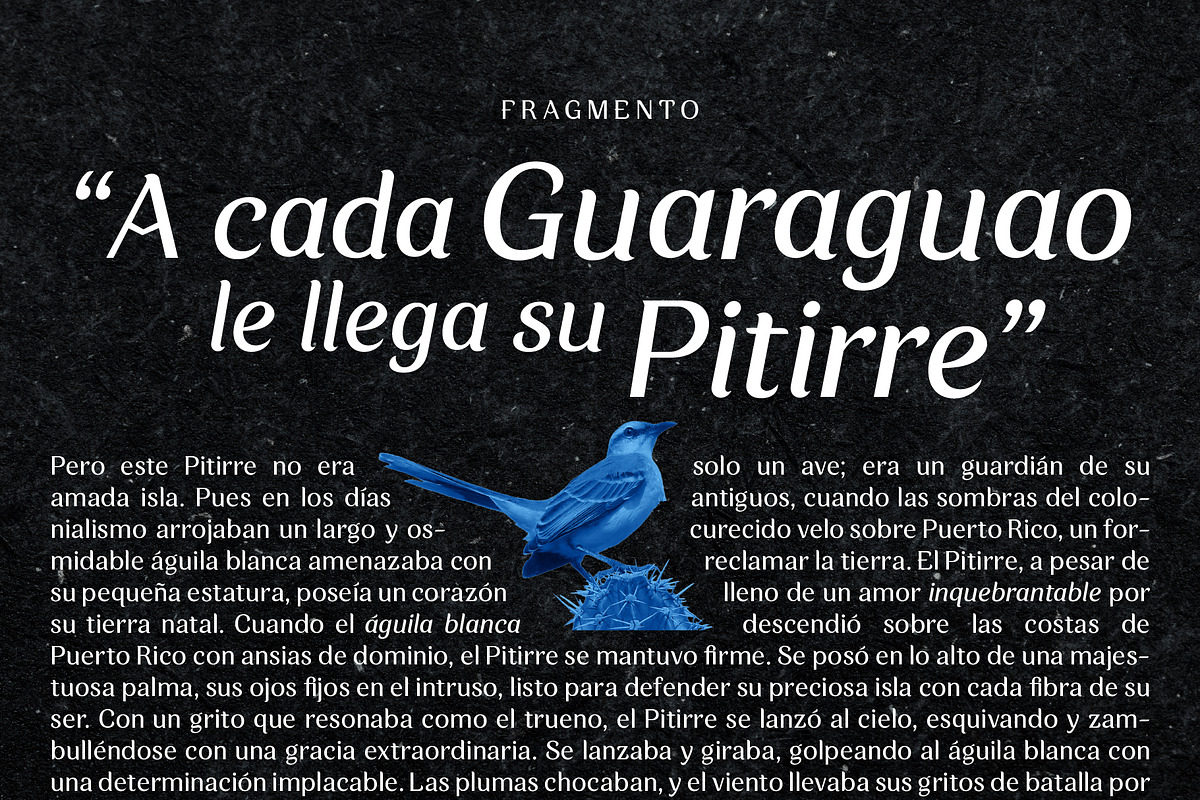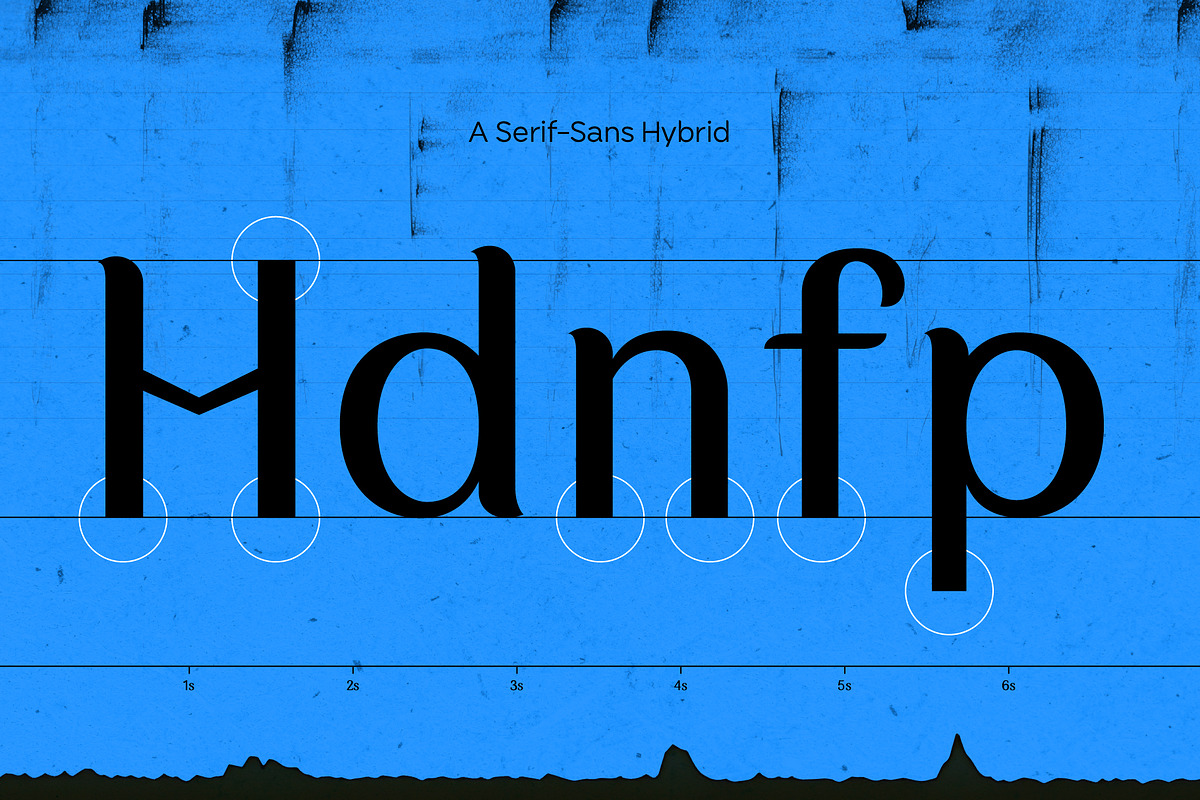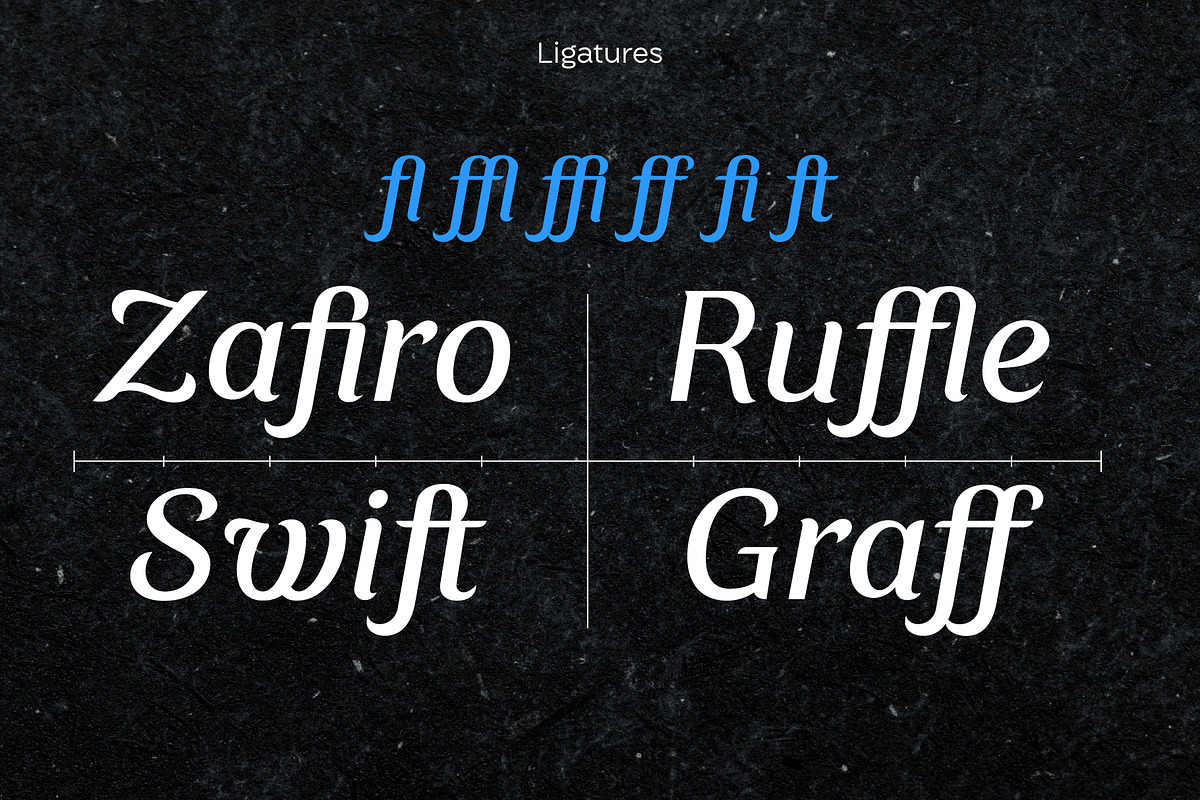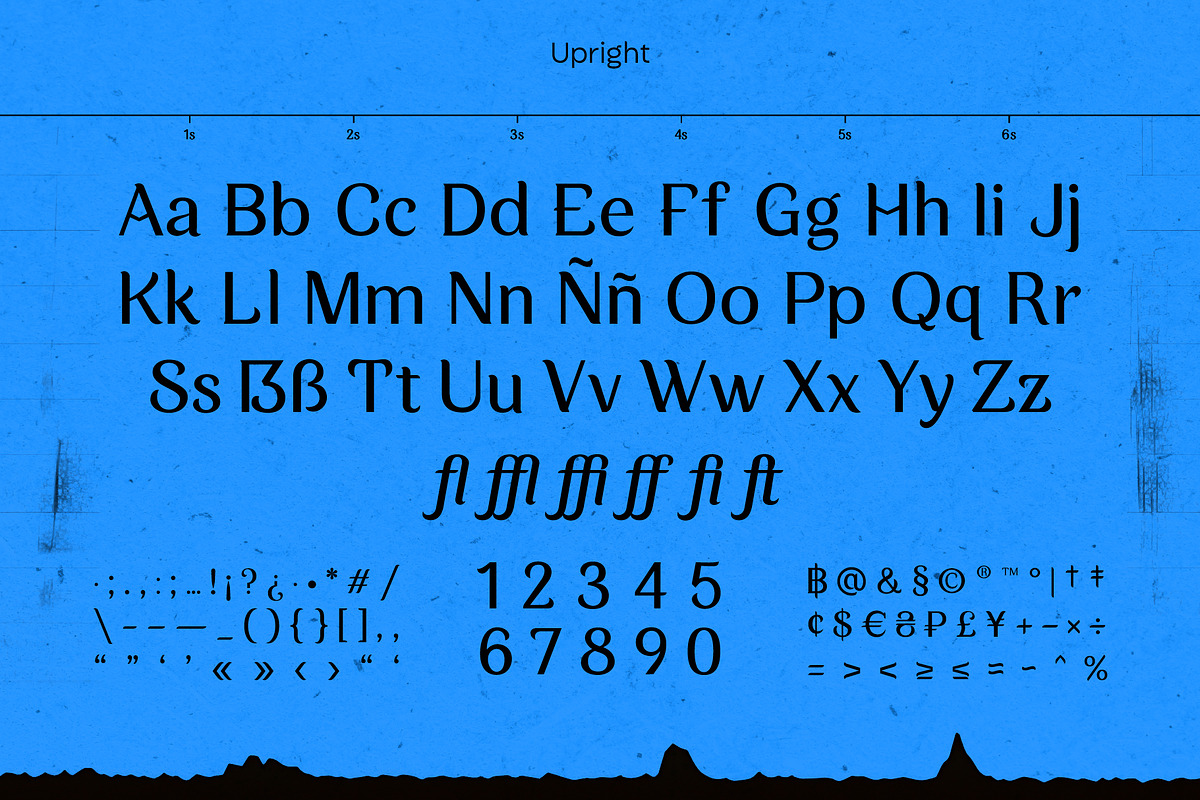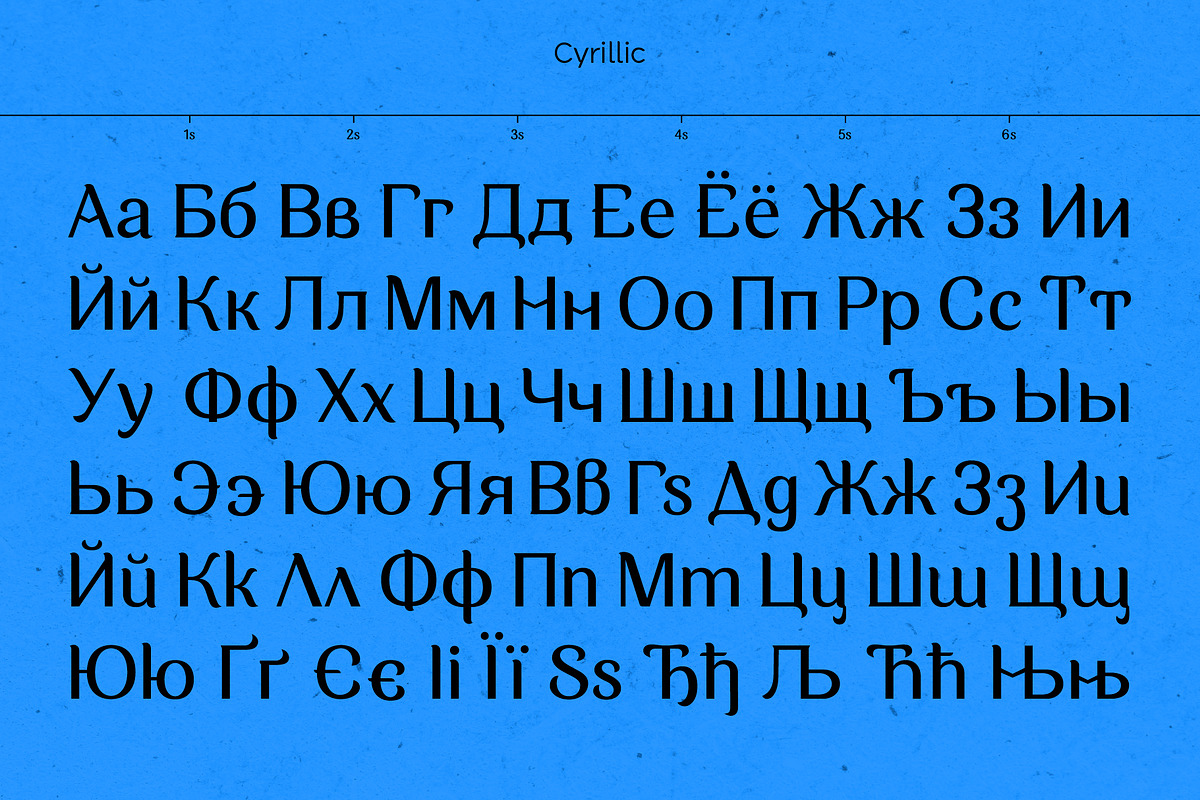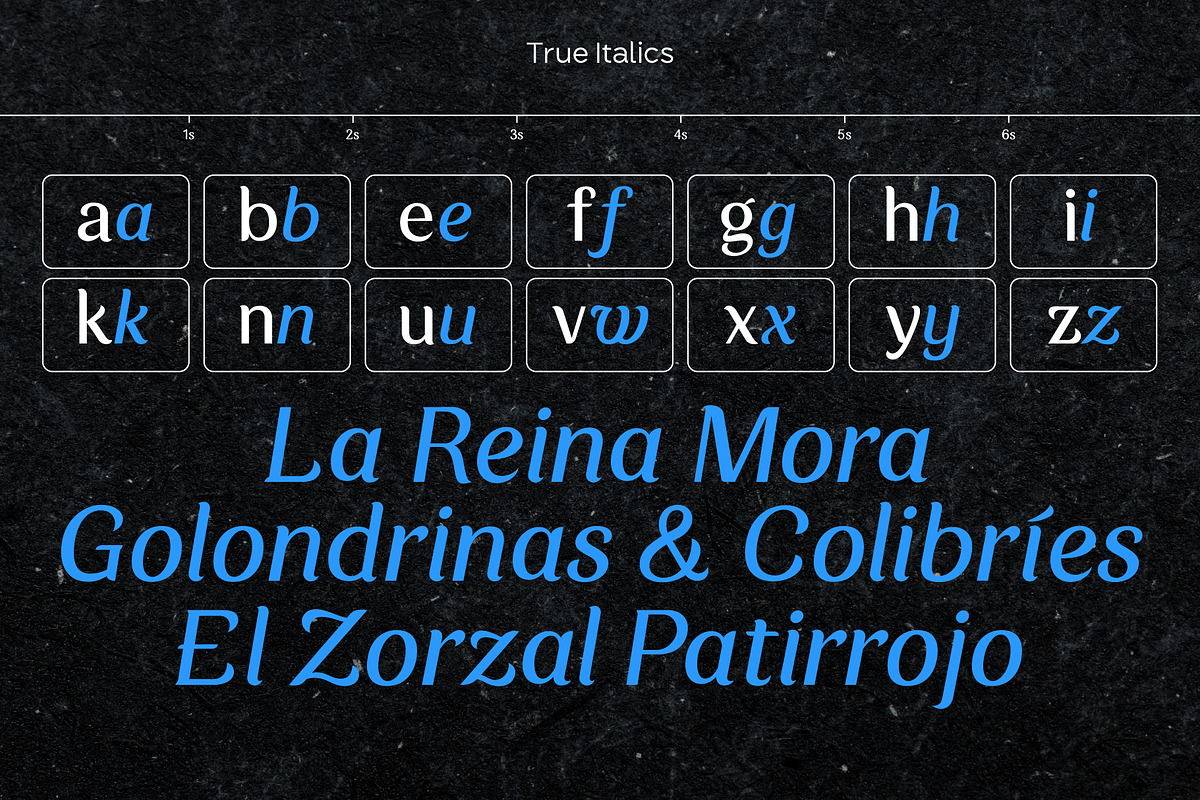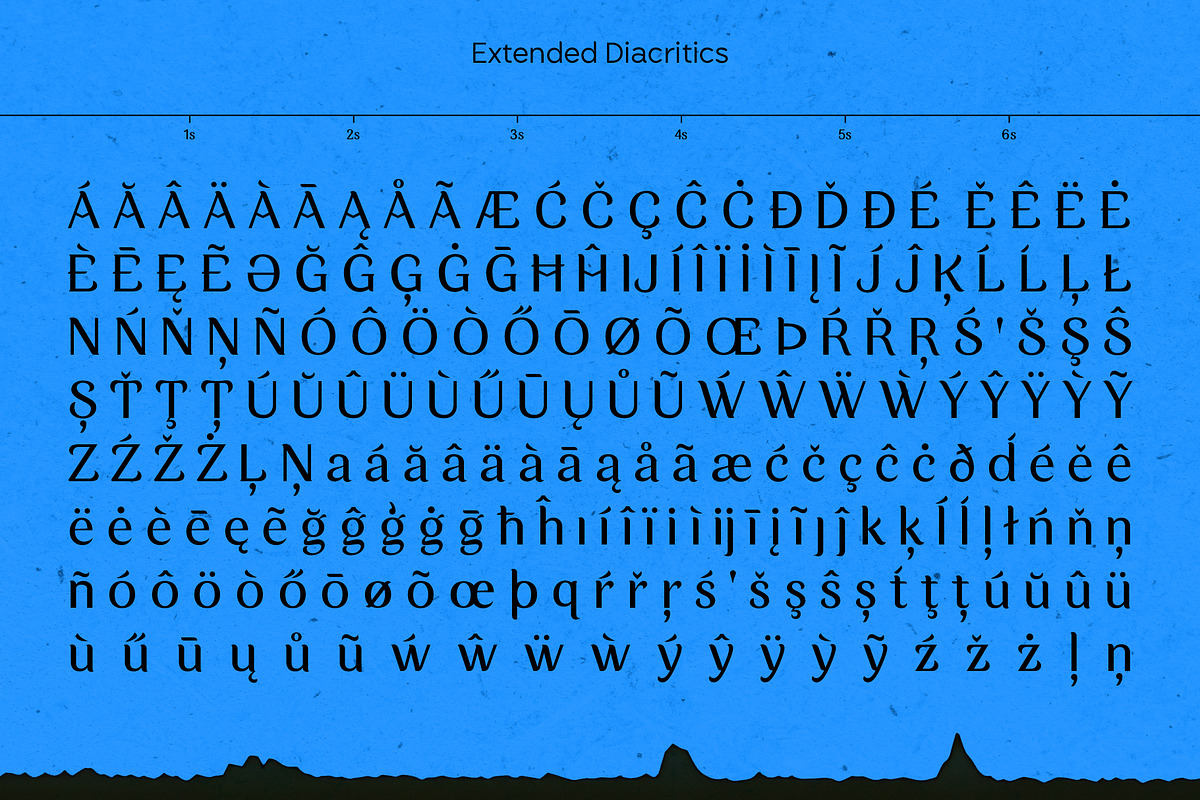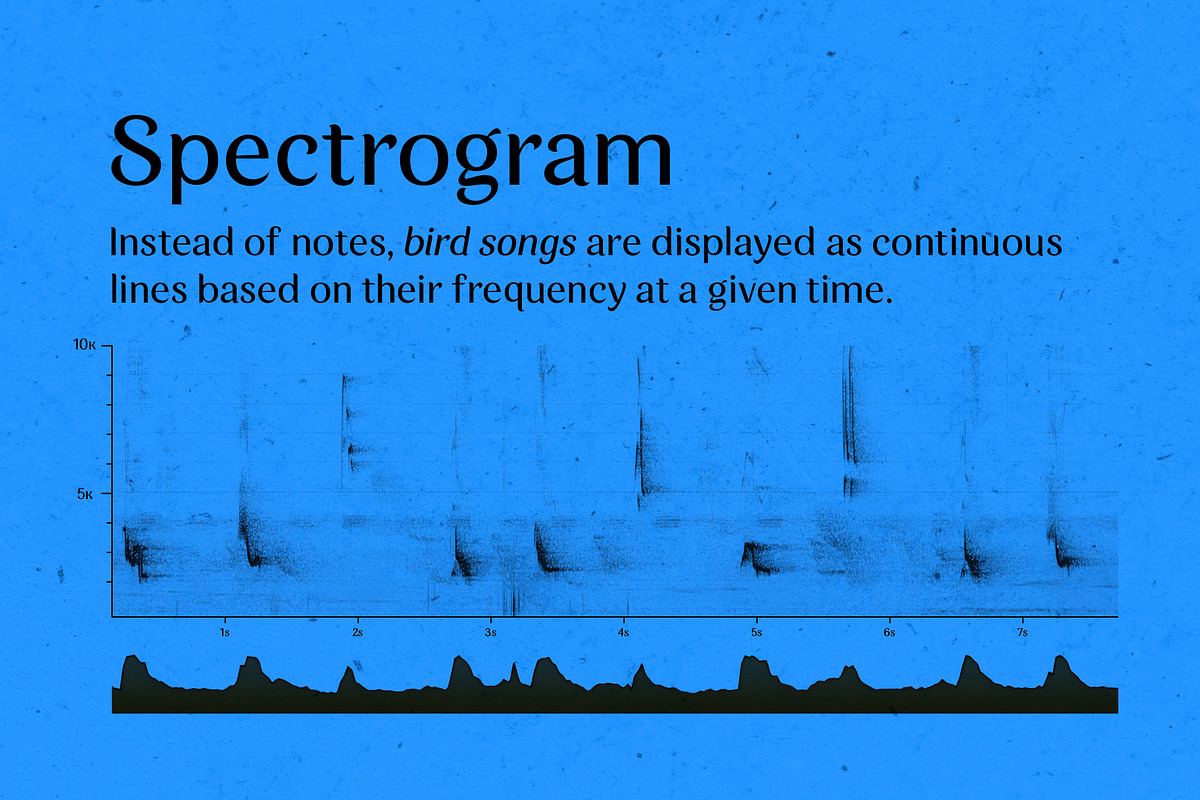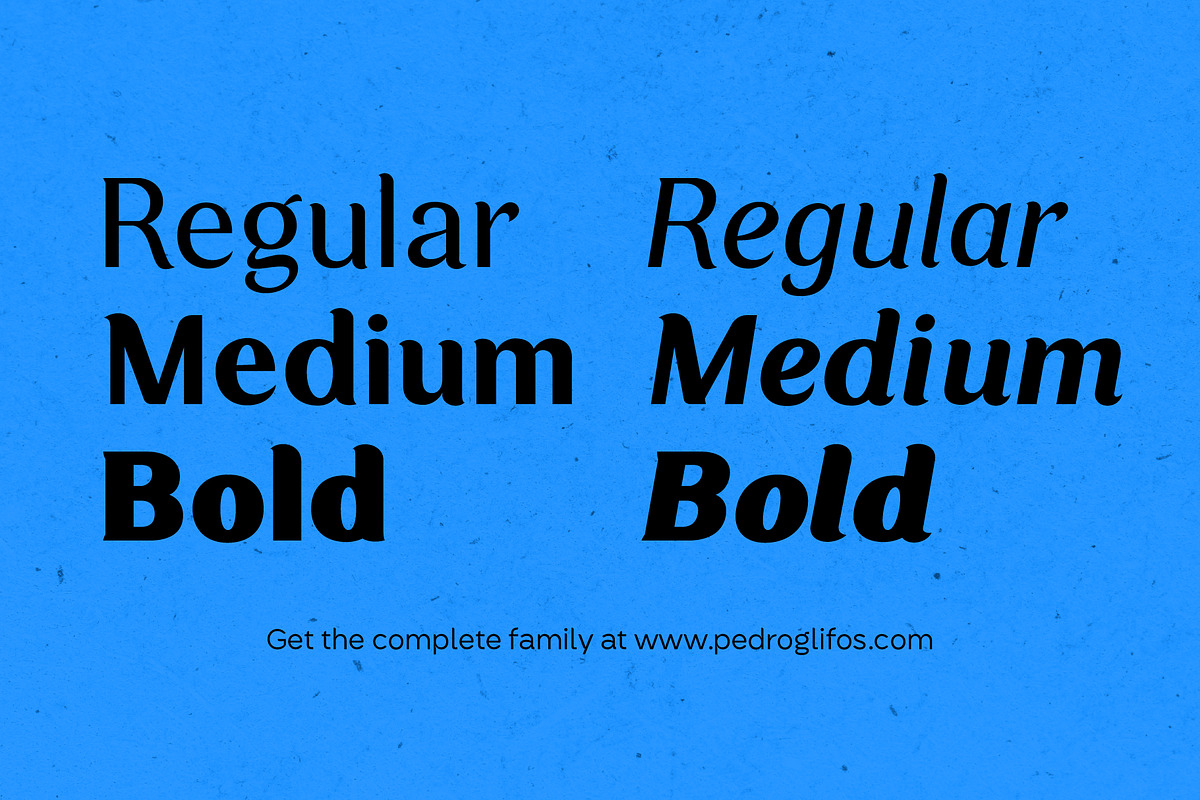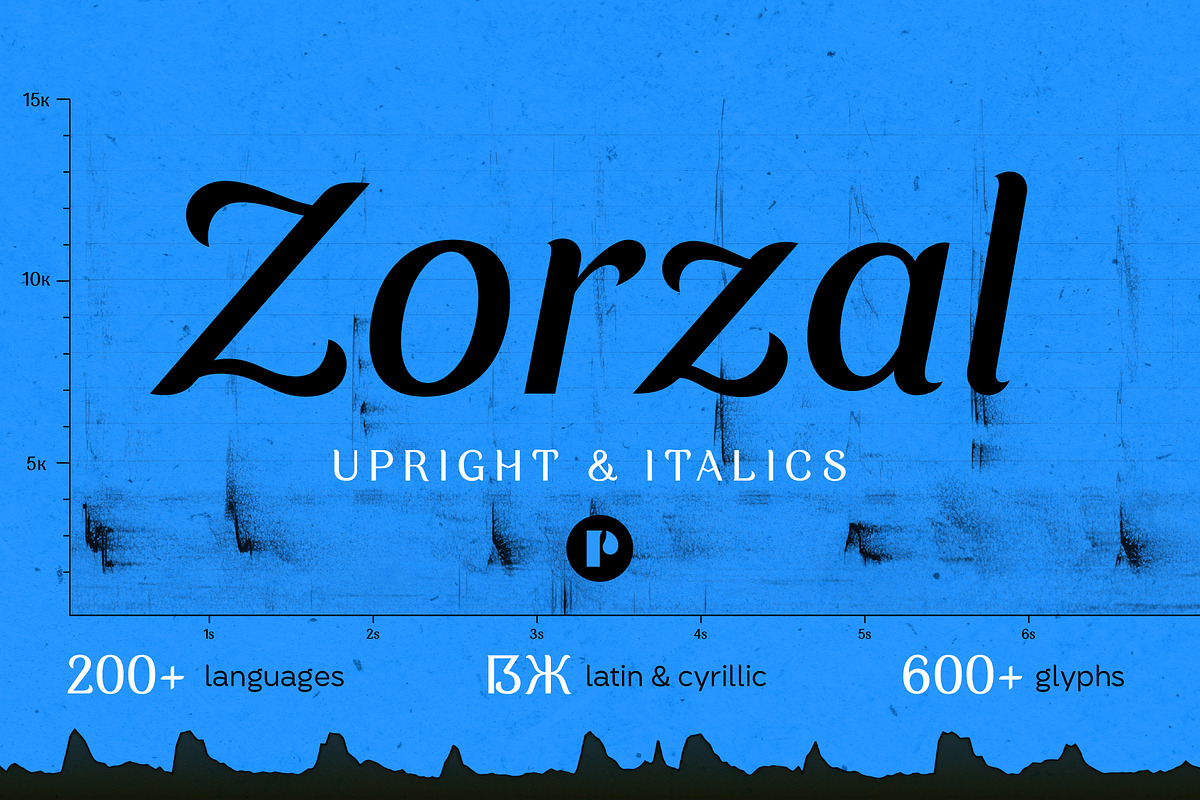
Zorzal | A serif-sans hybrid
Originally, Nimba —my first venture into crafting true italic characters. Initially a serif font, Nimba took on a life of its own, evolving into something unexpected, as James Edmonson aptly puts it: ‘Sometimes you gotta let the font tell you where it wants to go.' As the project progressed, the serifs gradually diminished until they disappeared entirely, replaced by subtle, graceful flourishes reminiscent of calligraphic strokes. A year later, Zorzal emerged —a font that seamlessly blends into the page like a swift bird darting across the sky, disappearing into the ether. Every letter is carefully crafted to harmonize with the next, forming a cohesive flock that gracefully navigates through paragraphs. If you're seeking a font that combines the readability of a sans serif with a vibrant touch of personality, Zorzal is the bird you'll want to welcome into your creative arsenal.